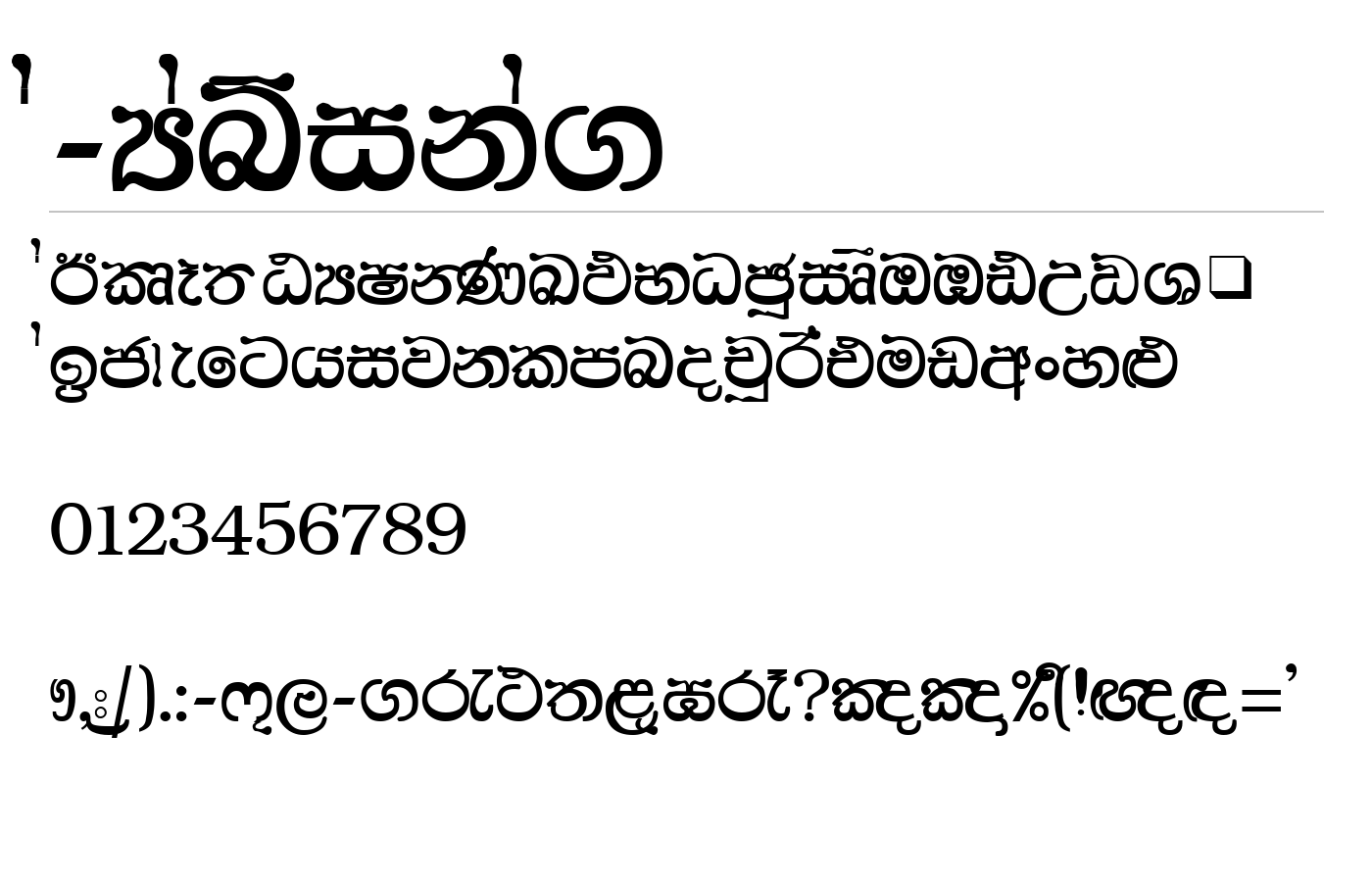
AA-Hansika is a serif font with a balanced, moderate weight and a slightly condensed width, offering clear legibility with its smooth, rounded strokes and elegant bracketed serifs. Its refined shapes and medium contrast make it ideal for traditional or formal uses, while supporting a wide range of characters including Sinhala script and numerals, making it versatile for editorial, branding, and digital content. This font communicates a sense of professionalism and cultural depth, perfect for projects needing both readability and a classic aesthetic.
AA-Hansika. Font